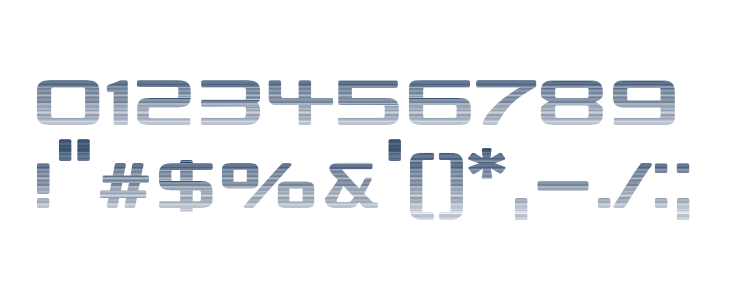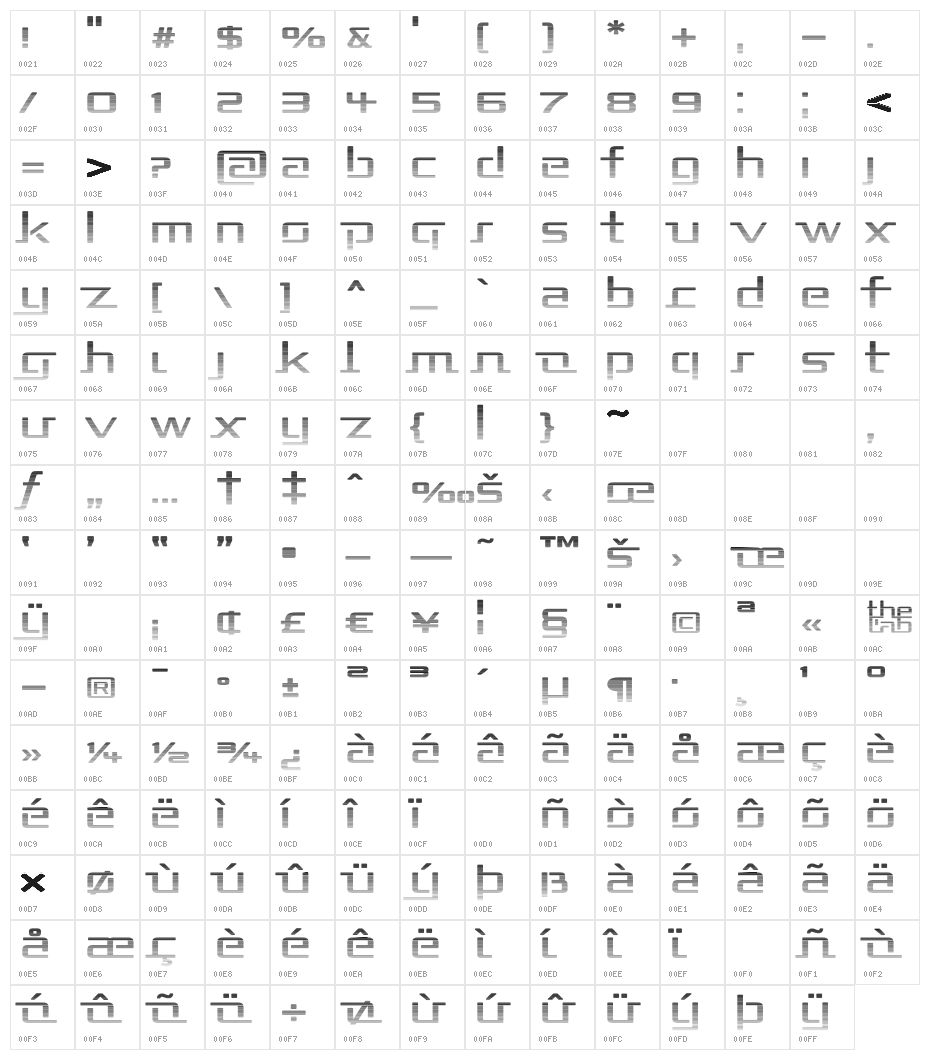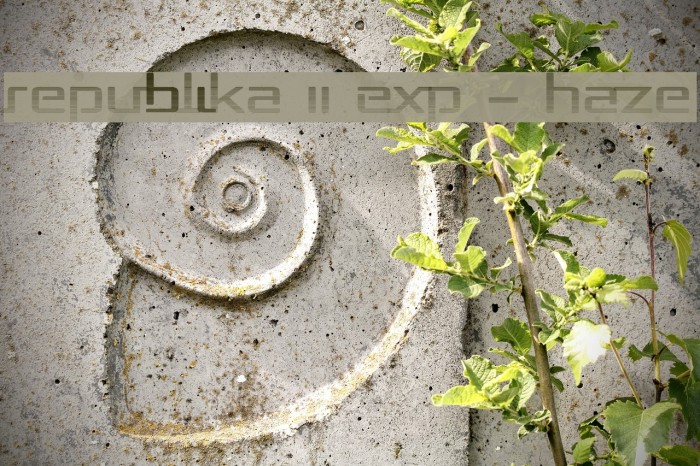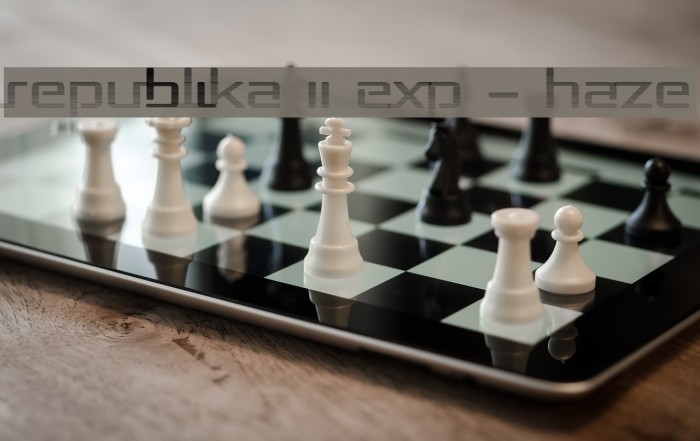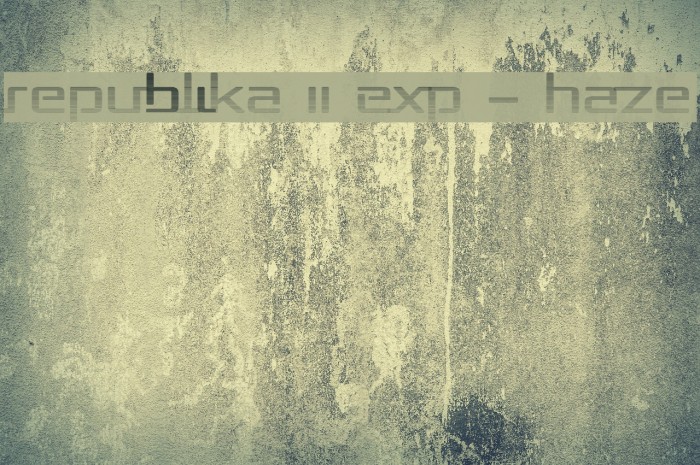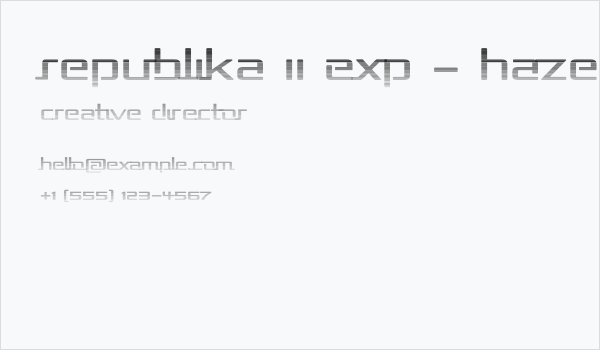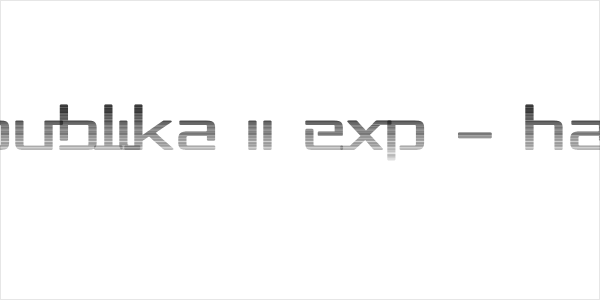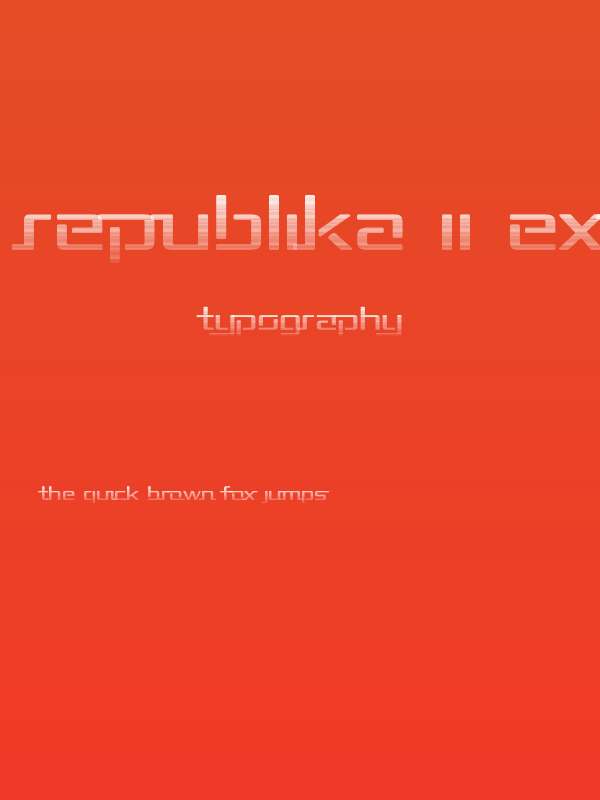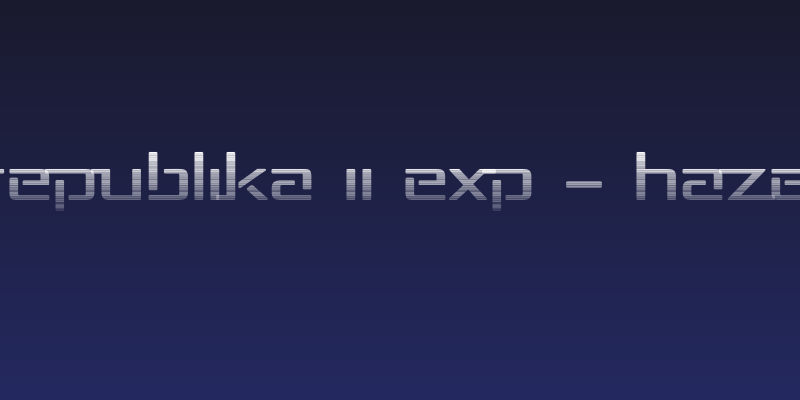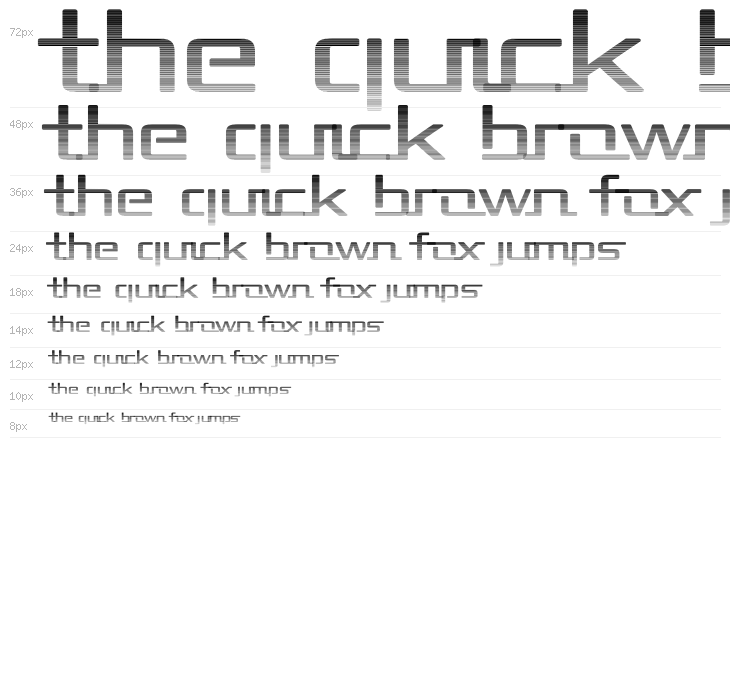
Republika II Exp - Haze Font
Republika II Exp - Haze Description
This font features a modern and futuristic design with a distinct digital aesthetic. The characters are composed of horizontal lines and geometric shapes, creating a sense of movement and technology. The uppercase and lowercase letters maintain a consistent style, with a unique blend of sharp angles and rounded edges. The numerals and special characters follow the same design principles, ensuring uniformity across all glyphs. The font's design is reminiscent of digital displays and electronic interfaces, making it suitable for tech-related projects.
| Use Case | Logos, Headlines, Digital interfaces |
| Proposed Projects | Ideal for technology branding, digital interfaces, video game titles, and futuristic-themed designs. |